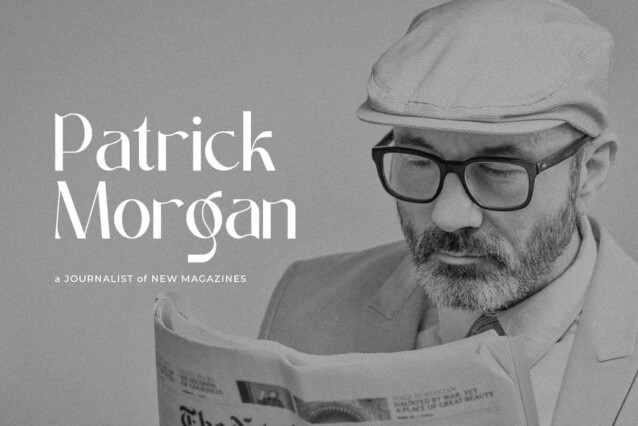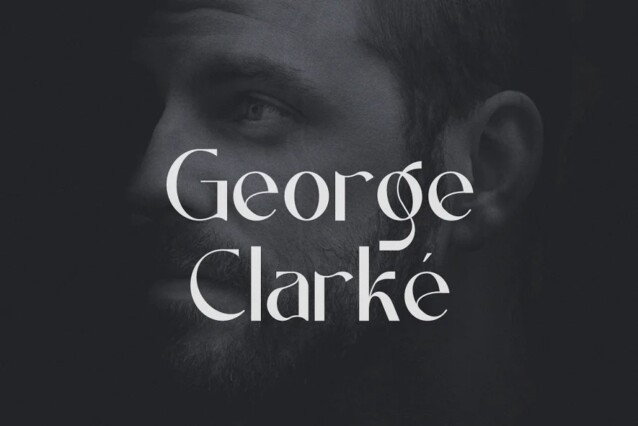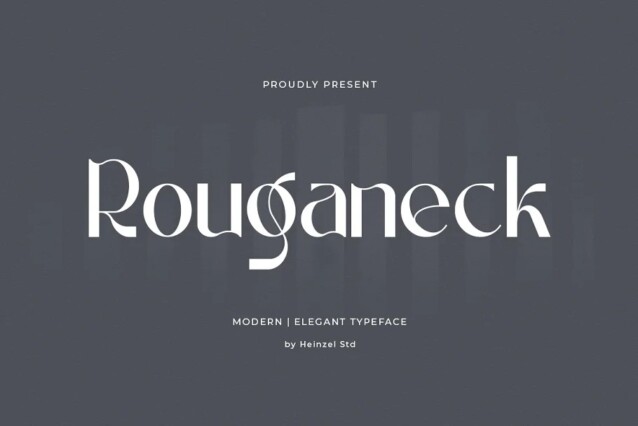
Rouganeck Font
Rouganeck Font is a special modern style font crafted & designed by Heinzel Std. Made with accurate accuracy with beautiful curves. Fall for its ravishing style and use it to create gorgeous wedding invitations, logos, branding, headlines, beautiful stationary art, eye-catching social media posts, websites, and much more! This font is PUA encoded which means you can access all of the amazing glyphs with ease!